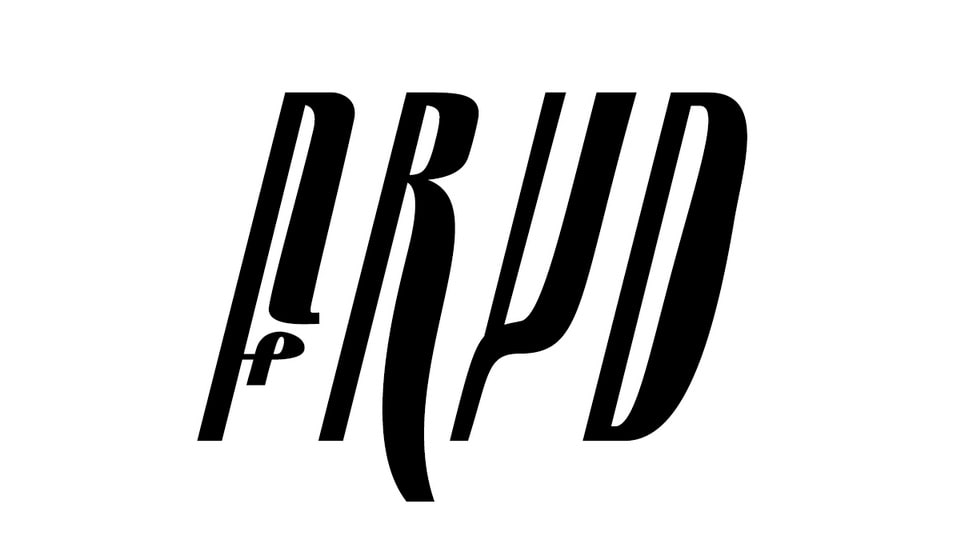
Download Plantasia Fryd font, a unique display typeface inspired by the Alocasia Frydek. Plantasia is a typeface family created by the students of the G5 Communication 360 class.